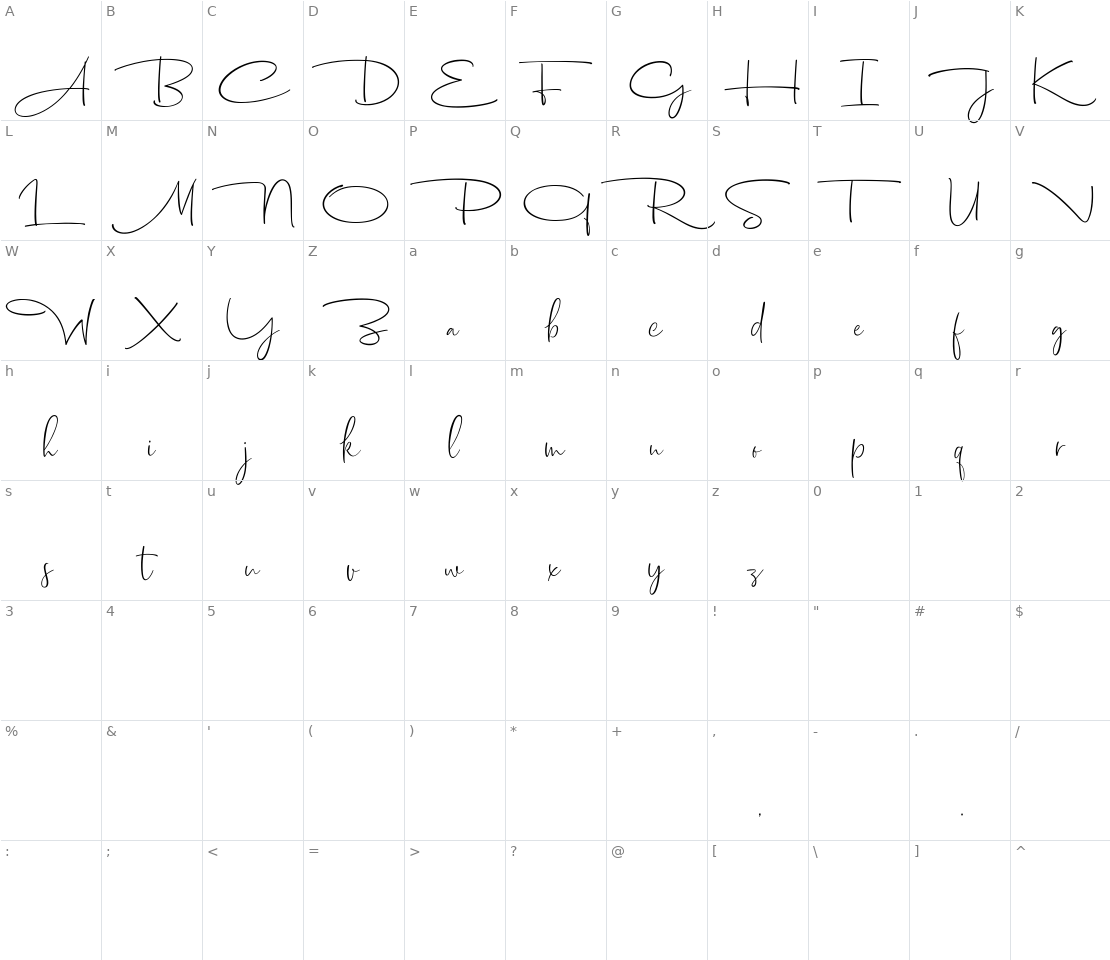
Dhanikans Signature 2
Dhanikans Signature 2 is a light, flowing signature script from Cotbada Studio with the kind of thin, graceful strokes that feel like an actual pen gliding across paper. The letterforms lean feminine and elegant without being overly formal, sitting comfortably on wedding invitations, personal branding, and editorial layouts. Its delicate weight means it needs room to breathe, so keep it at larger sizes where those fine hairlines stay crisp.